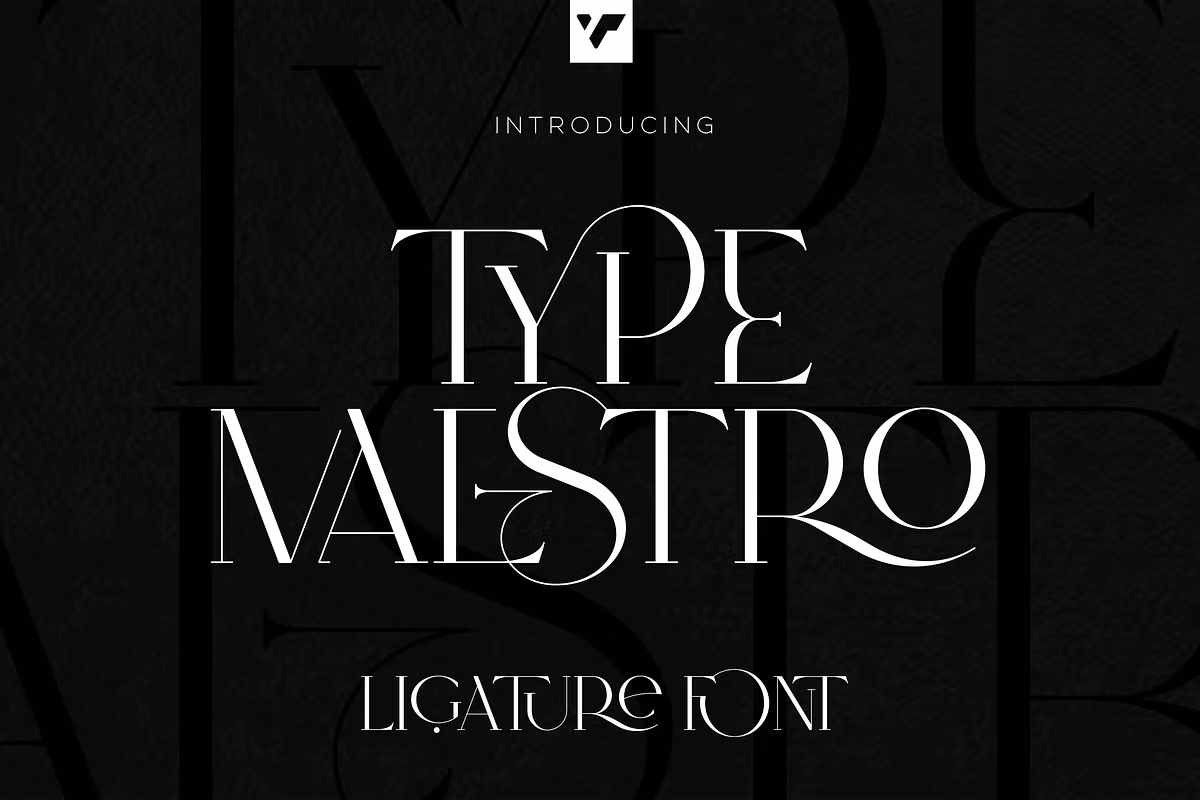
Please note that you must purchase this font for commercial use. You can download Type Maestro – Serif Font for free, strictly for personal testing purposes only. Type Maestro is a classic serif font with a modern twist, designed to bring both elegance and readability to your designs. With its refined letterforms, sharp serifs, and balanced proportions, Type Maestro Font Free Download is perfect for editorial layouts, branding, logos, invitations, and any design that requires a timeless and sophisticated feel.
This font offers versatility and is ideal for both digital and print designs, making it great for professional projects that need a polished look. It includes uppercase and lowercase letters, numerals, punctuation, and multilingual support, ensuring flexibility for global design needs.
Whether you're creating a luxurious brand identity, a high-end magazine layout, or elegant marketing materials, Type Maestro will add a touch of refinement to your typography.